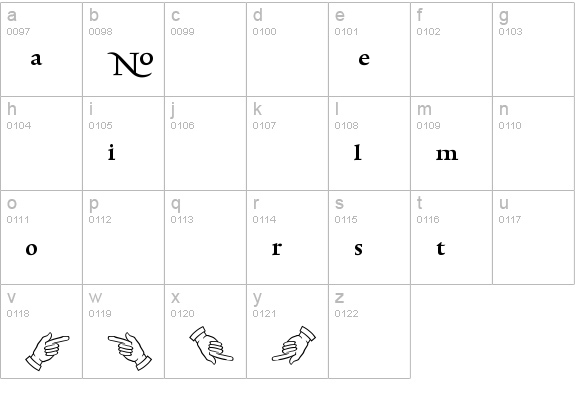
TriniteNo3-MediumWidePi is a captivating and versatile font that effortlessly combines elegance with modernity. With its medium width and precise curves, this font strikes the perfect balance between readability and style, making it suitable for a wide range of design projects. The unique design elements of TriniteNo3-MediumWidePi give it a distinctive and memorable appearance that sets it apart from other fonts. Its clean lines and sleek shapes exude a sense of sophistication, making it perfect for creating eye-catching logos, branding materials, and professional presentations. One of the most appealing aspects of TriniteNo3-MediumWidePi is that it is available for free. You can easily download this font at FontsMarket.com, a trusted source for high-quality and diverse font options. Whether you are a professional designer or simply someone looking to add a touch of elegance to your personal projects, TriniteNo3-MediumWidePi is a must-have font that can enhance any creative endeavor. The versatility of TriniteNo3-MediumWidePi is unparalleled, allowing it to seamlessly adapt to various design styles and contexts. Its highly legible characters make it ideal for both digital and print applications, ensuring that your message is conveyed clearly and effectively. TriniteNo3-MediumWidePi's extensive character set includes uppercase and lowercase letters, numerals, punctuation marks, and special symbols, providing you with all the tools you need to bring your creative vision to life. Whether you're designing a poster, website, or advertisement, TriniteNo3-MediumWidePi will help you achieve a polished and professional look. In conclusion, TriniteNo3-MediumWidePi is a free font that combines elegance, versatility, and readability. It is the perfect choice for designers and creatives who seek a font that stands out from the crowd. Download TriniteNo3-MediumWidePi today at FontsMarket.com and unlock a world of creative possibilities.